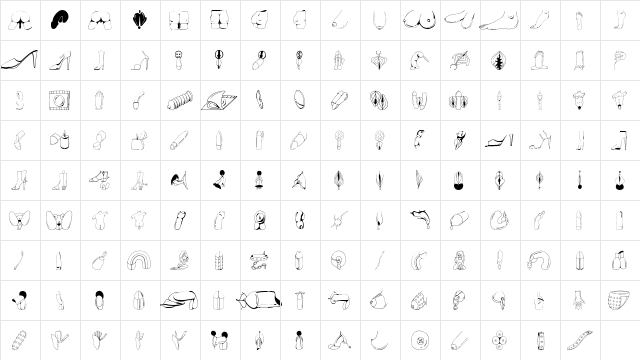
ADULT DINGBATS ALL Regular
Design Context for ADULT DINGBATS ALL Typeface
ADULT DINGBATS ALL is a composed and adaptable typeface that performs quietly and consistently across a wide range of design contexts.